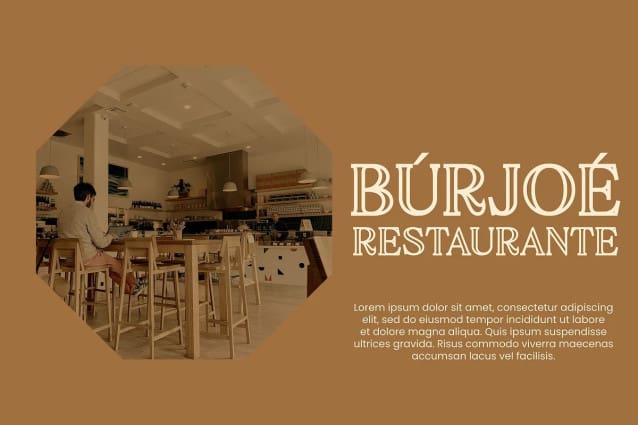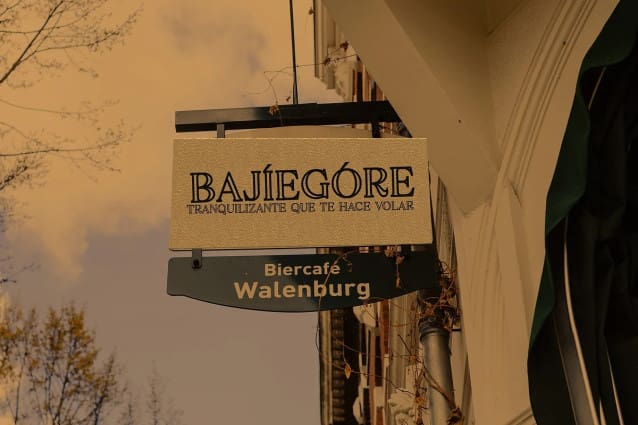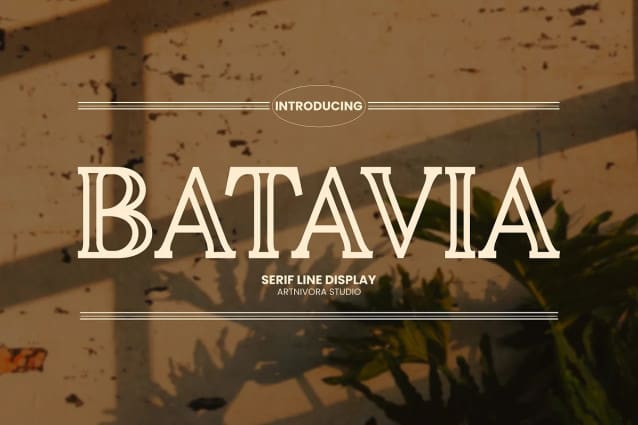
Batavia Font
Batavia Font, a simple and serif line font. So perfect for you who needs a typeface for logo designs, magazine, social media, brochure, and many more.